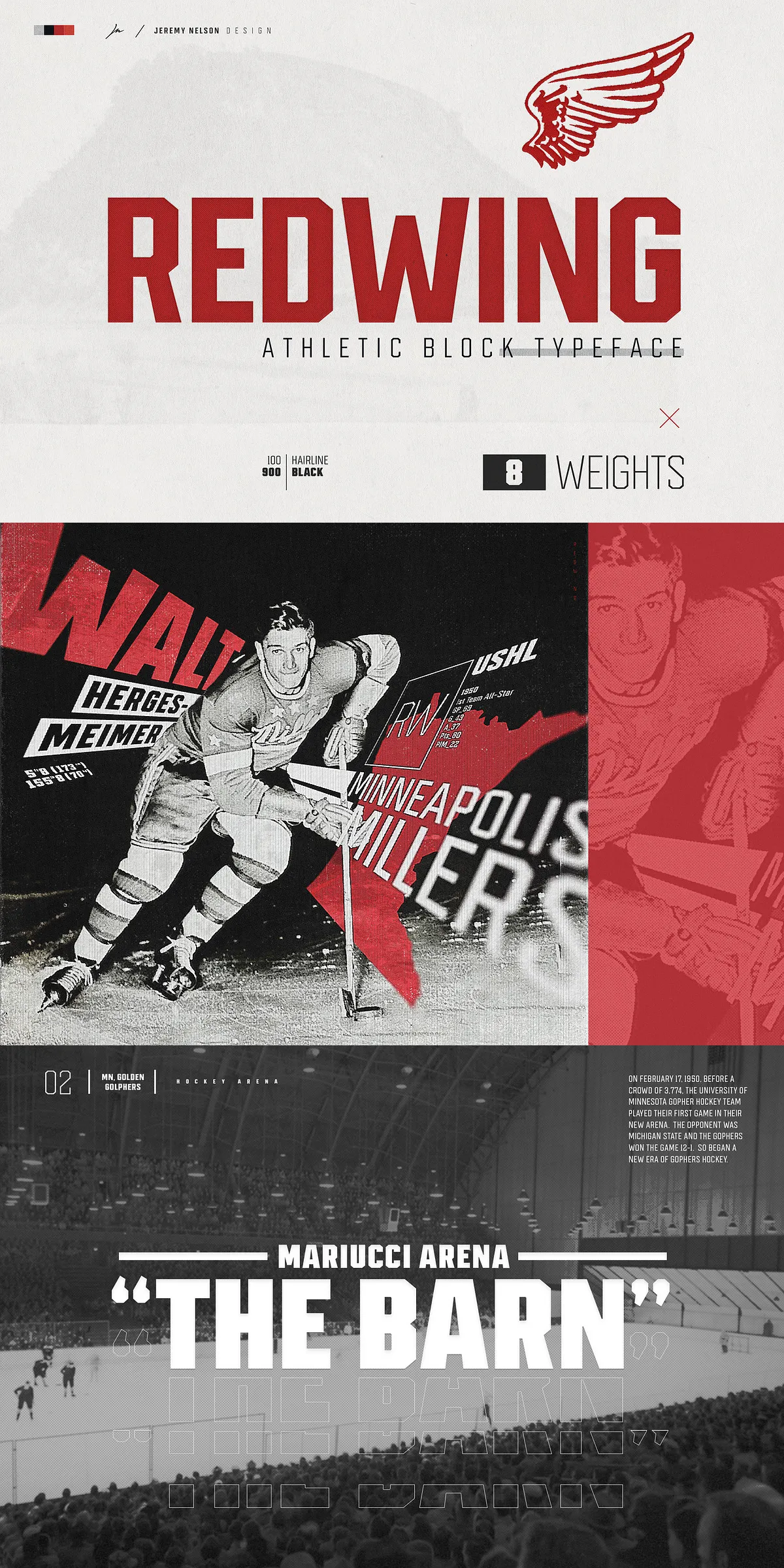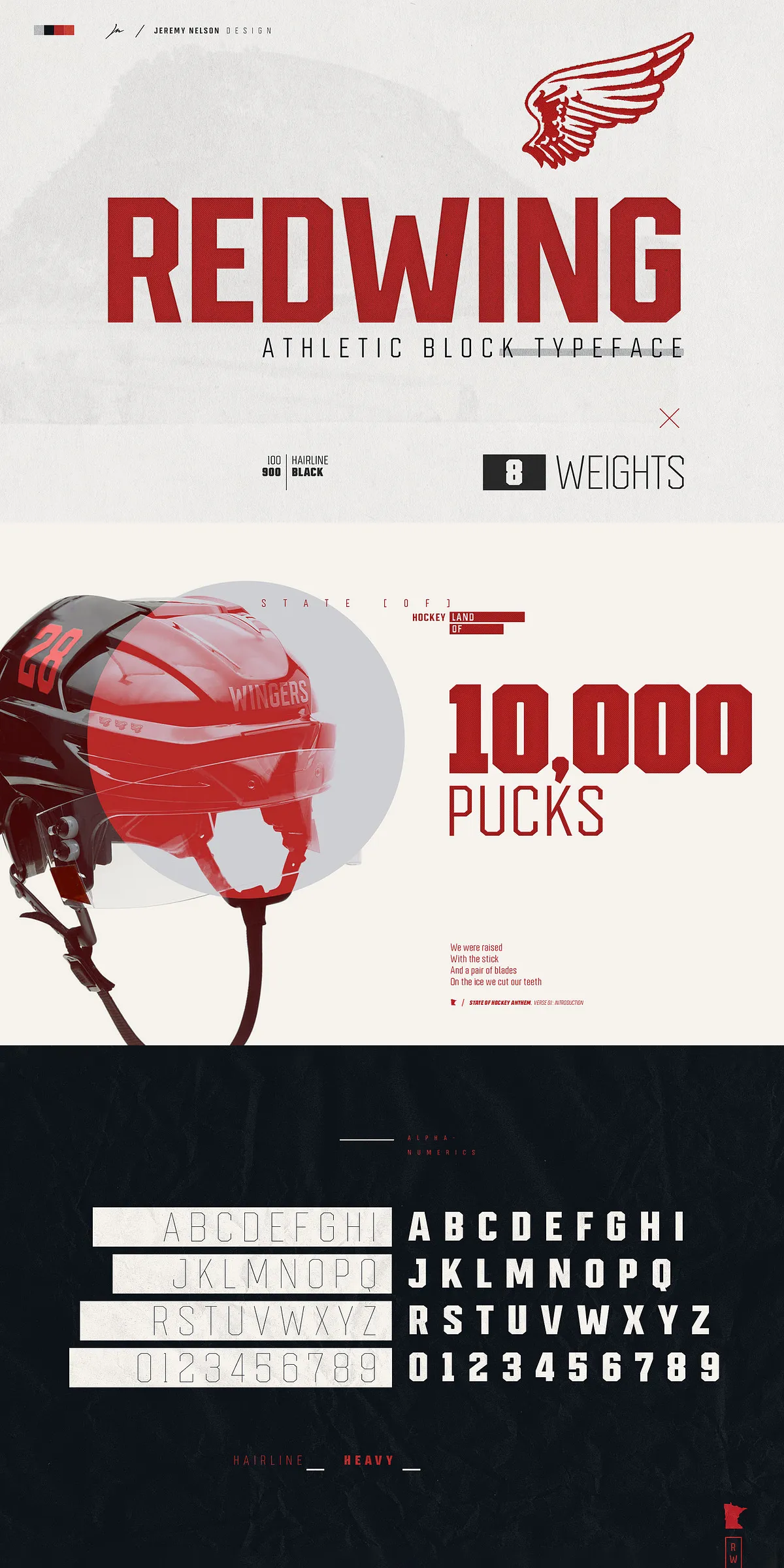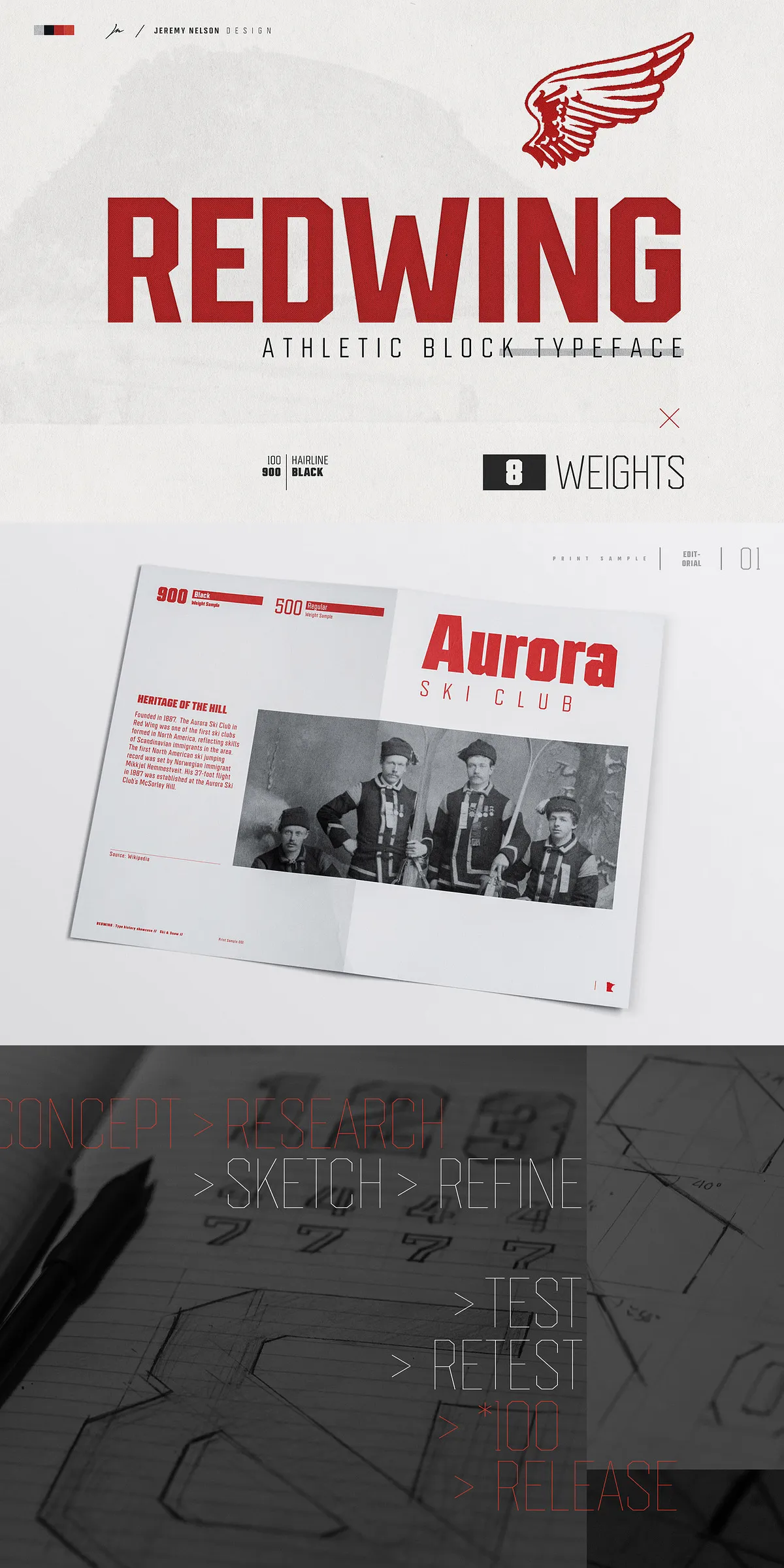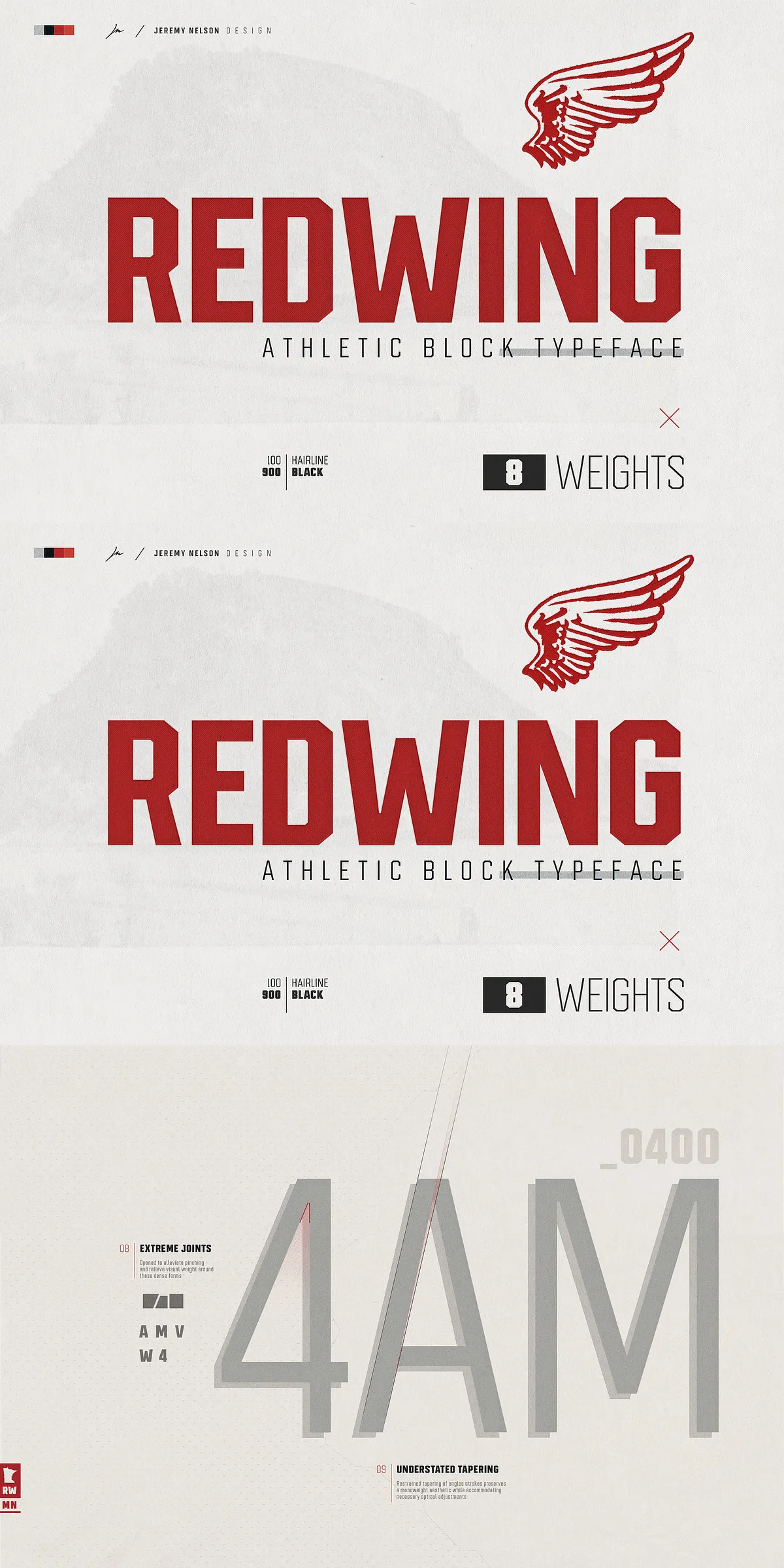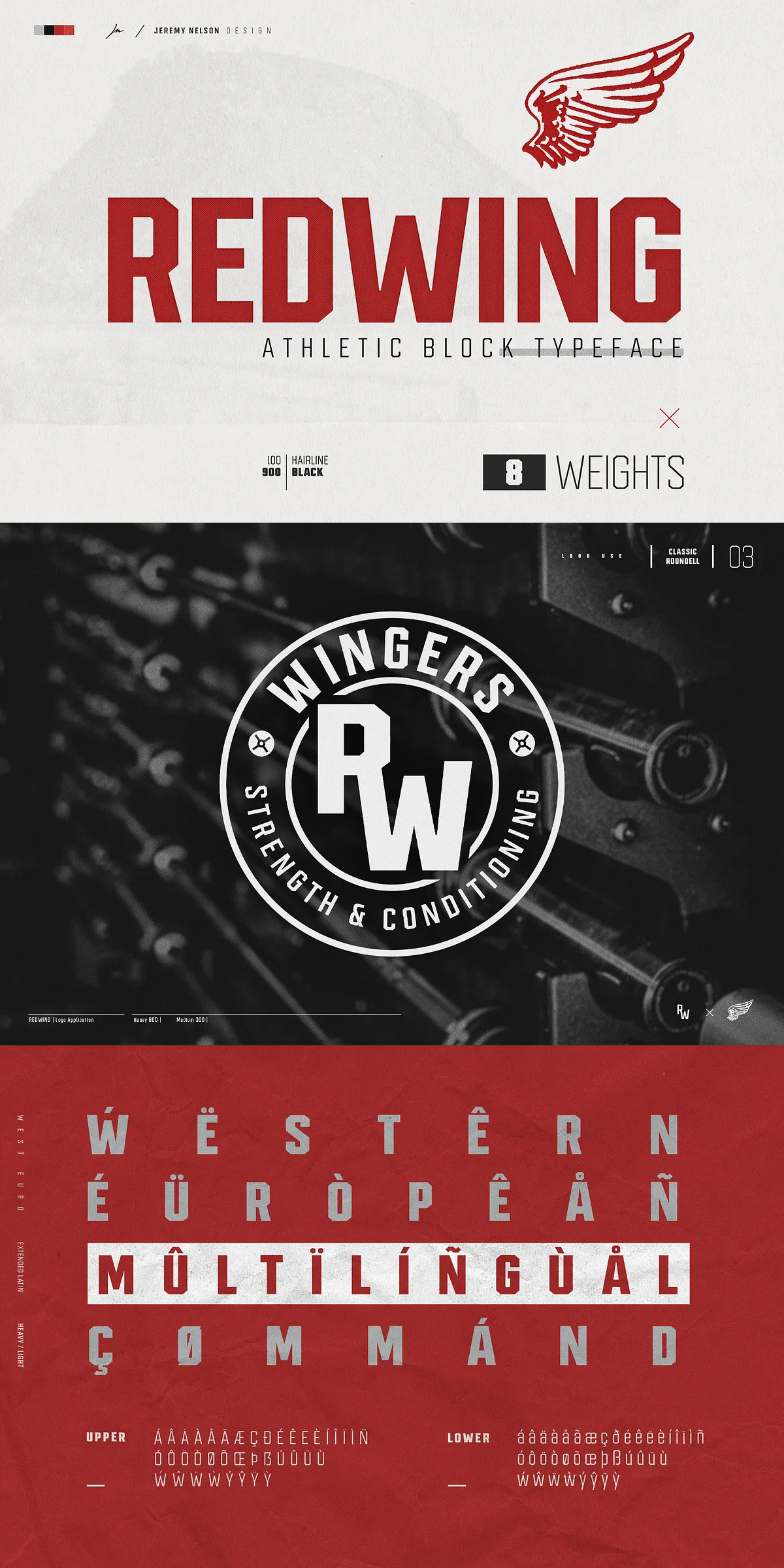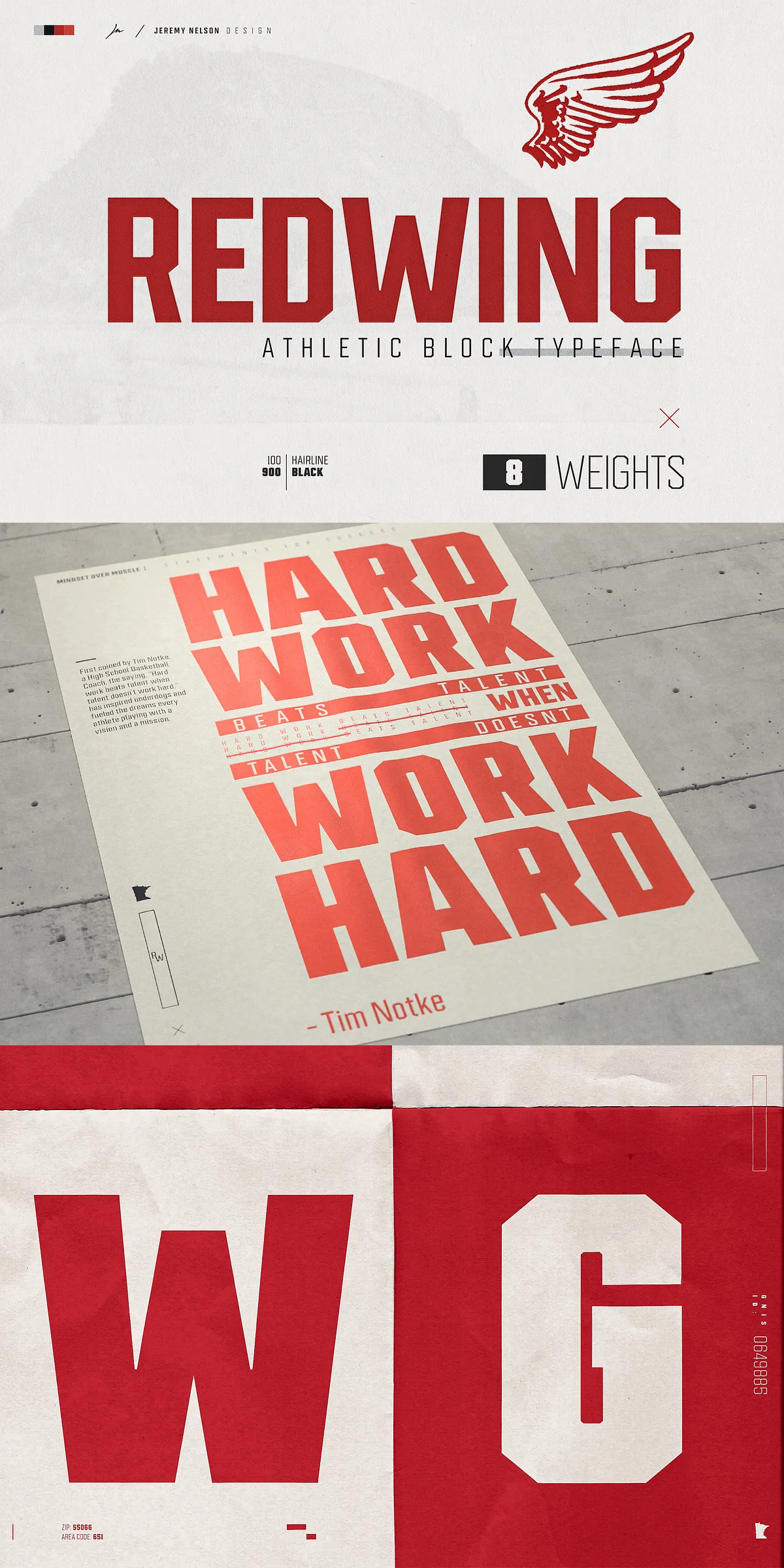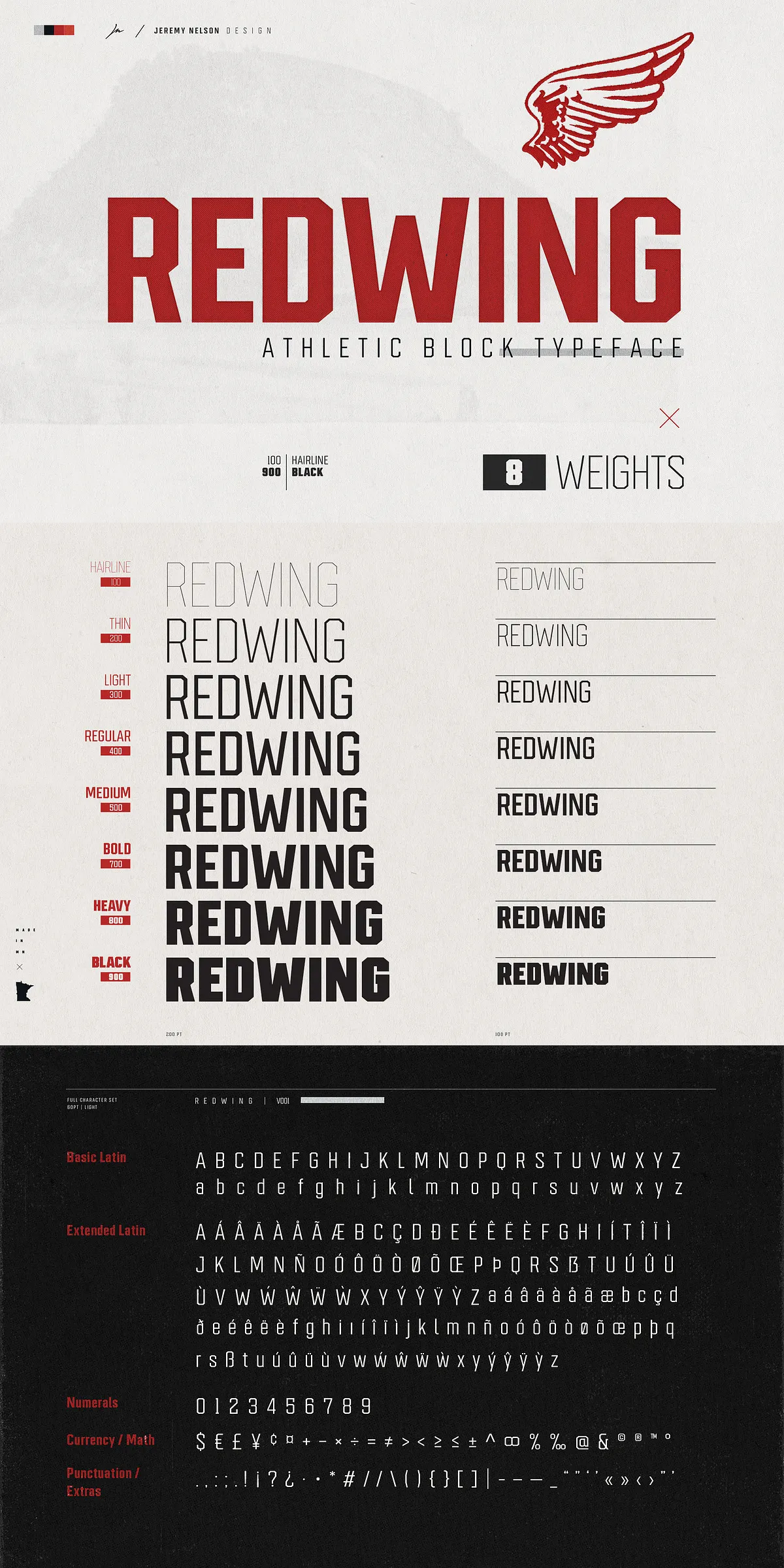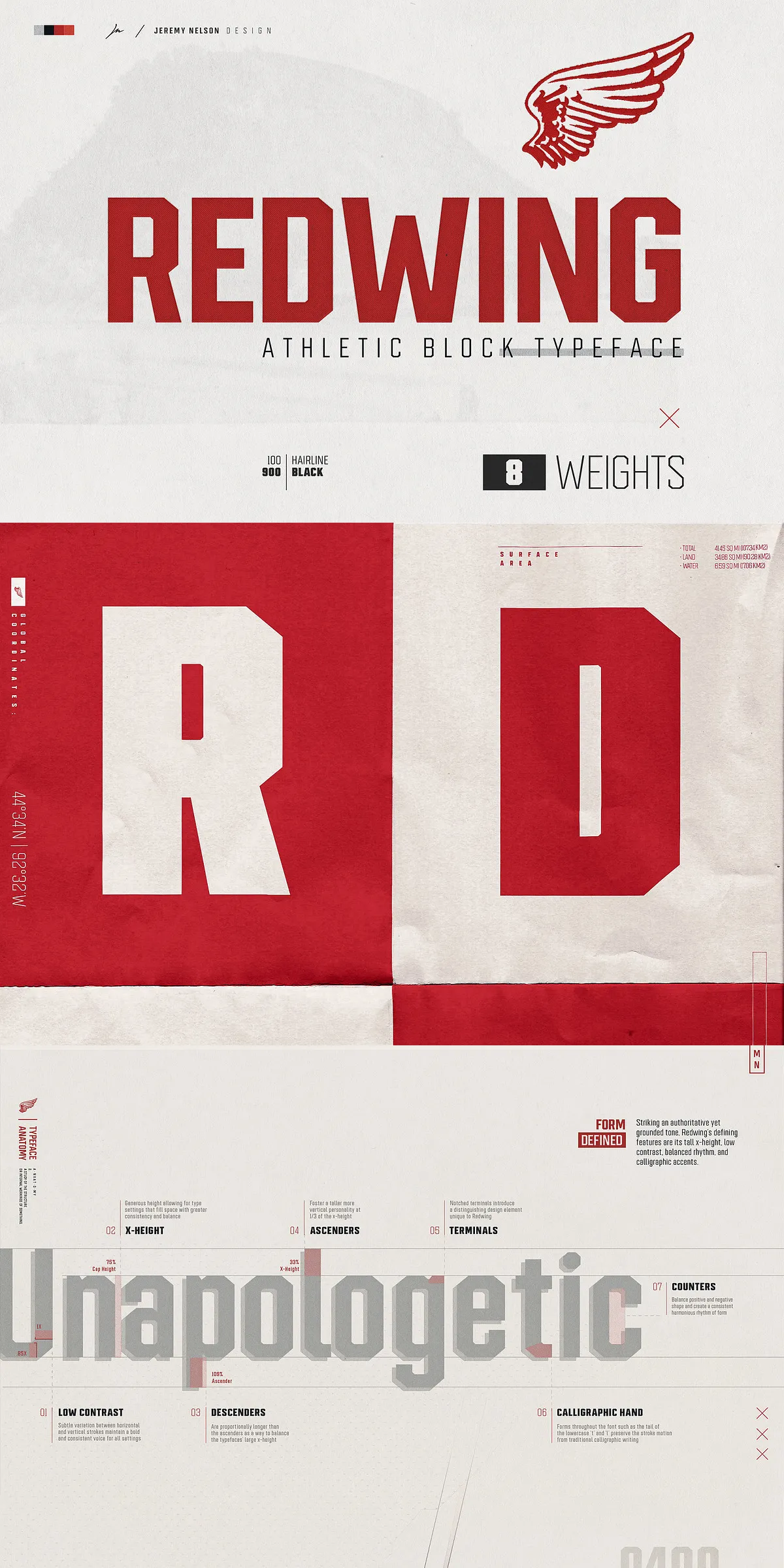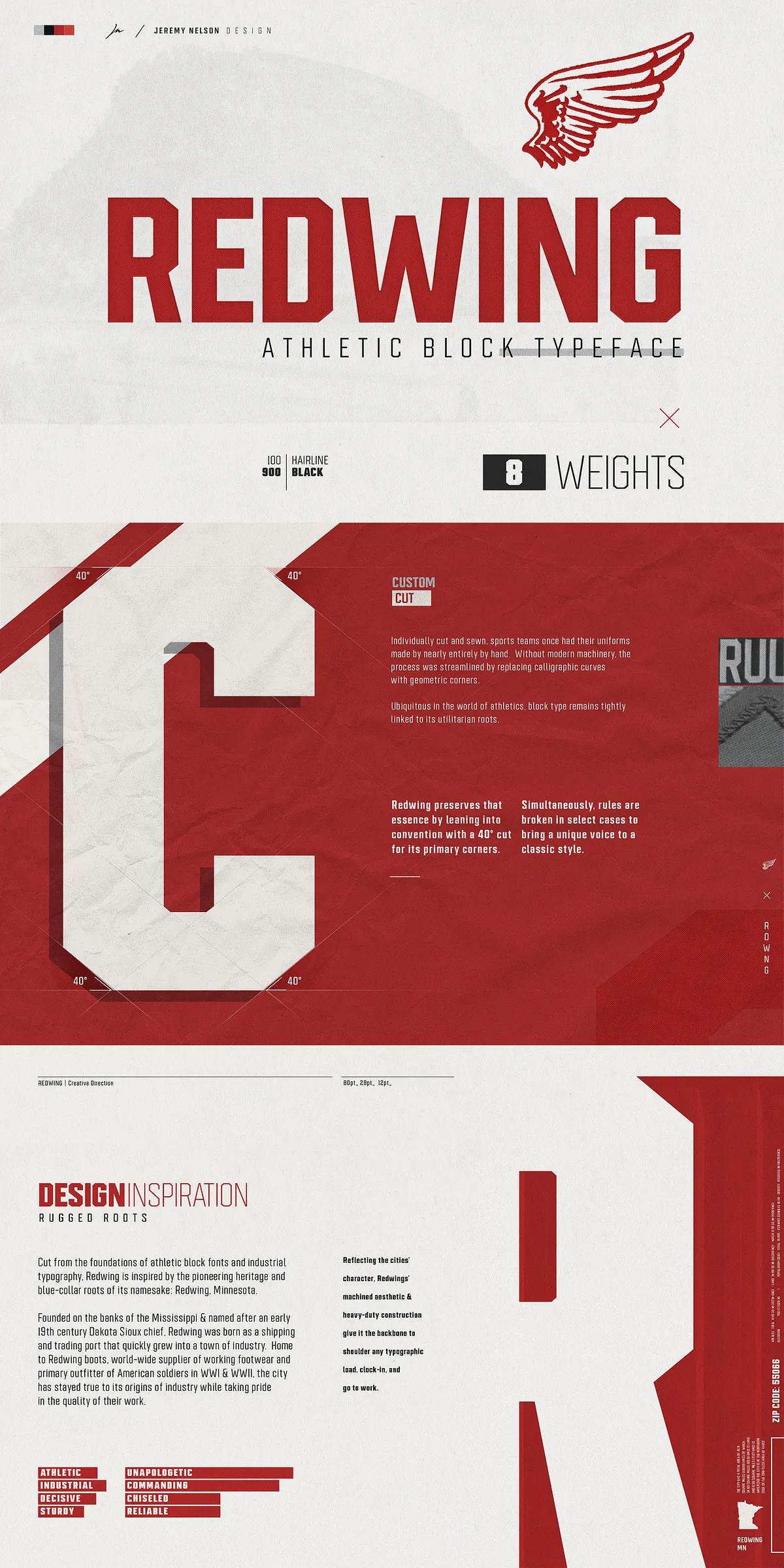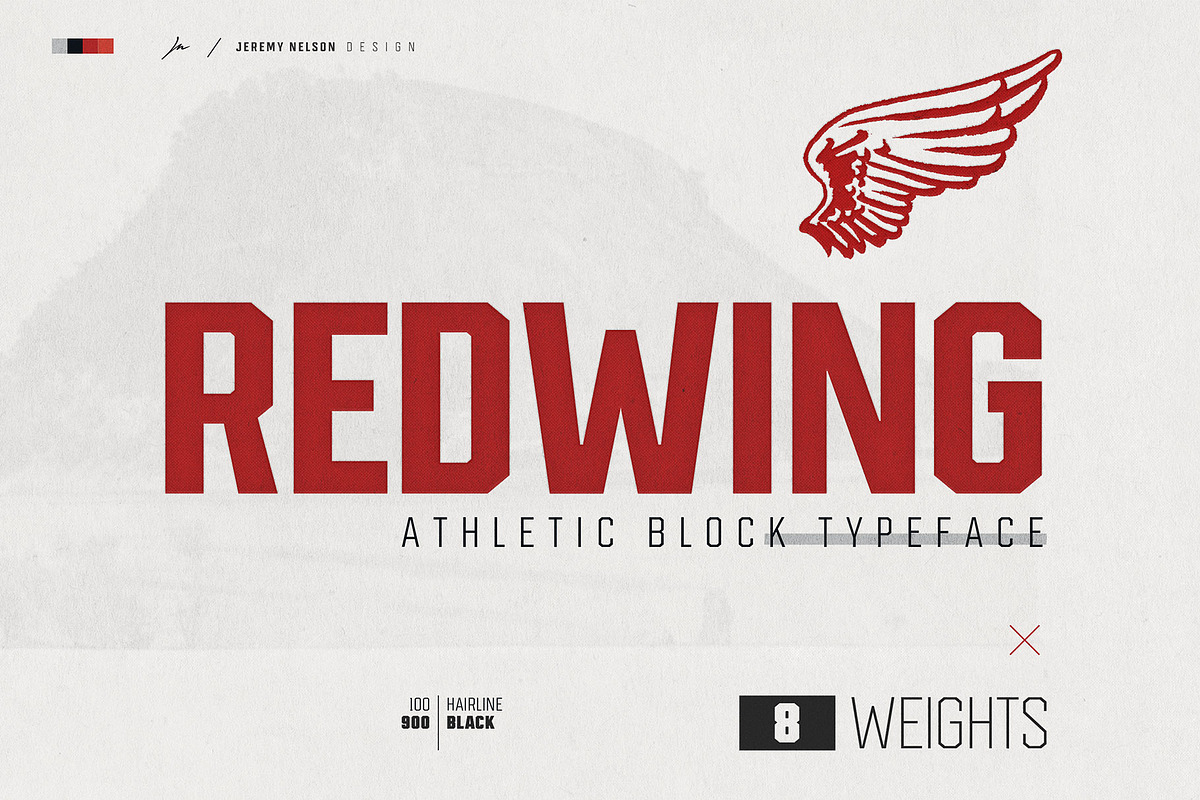
Meet Redwing — a typeface forged in the spirit of industrial might and athletic precision. If your message needs to land with authority, command attention, and never back down, Redwing is your voice. Designed from the raw foundations of athletic block fonts and industrial typography, this typeface doesn’t whisper — it declares.
Designed for Impact: Where Strength Meets Precision
Unapologetic Angles, Heavy-Duty Presence
Redwing’s character lies in its unyielding geometry. Sharp, clean angles, rigid alignment, and a bold, compact structure give it a machined, almost mechanical confidence. It’s not just a font — it’s a statement. Whether you’re crafting a sports league logo, a high-energy event headline, or a campaign tagline for performance gear, Redwing delivers with unshakeable focus and zero hesitation.
Classic Proportions, Modern Edge
Beneath its aggressive exterior lies a deep respect for typographic tradition. Redwing maintains classic block letter proportions — open counters, balanced width, and a strong visual rhythm — ensuring readability at any size. But it’s not stuck in the past. Subtle ink traps, optimized spacing, and modern glyph design ensure it performs flawlessly in both print and digital environments, from neon signage to responsive web headers.
The Power of the Weight Scale: From Subtle to Domination
12 Weight Levels for Every Mission
Redwing isn’t just bold — it’s versatile. With a full weight scale from Hairline (100) to Black (900), this typeface adapts to any role:
- Hairline (100) — For minimalist, high-end branding that still carries weight.
- Thin (200) — Ideal for subtle accents in luxury or premium products.
- Light (300) and Regular (400) — Perfect for subheadings, captions, and clean layouts.
- Medium (500) and Bold (600) — The sweet spot for headlines, banners, and digital calls-to-action.
- Heavy (700) and Black (900) — Maximum impact. Use for stadium signage, championship logos, or bold creative statements.
Use the Weights Strategically
Create visual hierarchy with intention. Pair Redwing Black for your main headline, then drop into Regular or Medium for supporting text. Use Thin or Hairline for contrast in minimalist designs. Every weight is engineered to maintain the same bold personality — just at different intensities.
Perfect For: Sports, Branding, and High-Stakes Messaging
Sports & Athletic Branding
For athletic teams, sports events, fitness brands, or performance apparel, Redwing screams “competitor.” Its industrial tone feels like a track at dawn, a locker room after a win, or a championship medal gleaming under the lights. Use it for team names, jersey numbers, event posters, and social media campaigns that demand recognition.
Industrial & Urban Design
Redwing thrives in gritty, mechanical, or urban environments. It’s ideal for factory logos, construction company branding, automotive design, and architectural signage. The typeface feels durable, reliable, and built for real-world environments.
High-Impact Advertising & Digital Display
On web banners, video titles, app interfaces, or digital storefronts, Redwing cuts through the noise. Its clean, high-contrast forms are easy to read, even at small sizes. The dynamic weight range lets you modulate tone — serious in Black, sharp in Bold, subtle in Regular.
Technical Excellence: Built for Real-World Use
Full-Featured OpenType Support
Redwing includes advanced typographic features:
- Stylistic Alternates
- Case-Sensitive Forms
- Small Caps (for professional headlines)
- Discretionary Ligatures
- Contextual Alternates for smoother flow
These ensure your design remains polished, even at large scales.
Use Redwing — Not Just to Type, but to Command Attention
More Than a Typeface. It’s a Mindset.
Redwing is for creators who believe in boldness. It’s for brands that don’t want to blend in. It’s for designers who need their message to be seen, felt, and remembered. Every stroke is deliberate. Every angle is intentional.
Stop playing small. Start making statements.